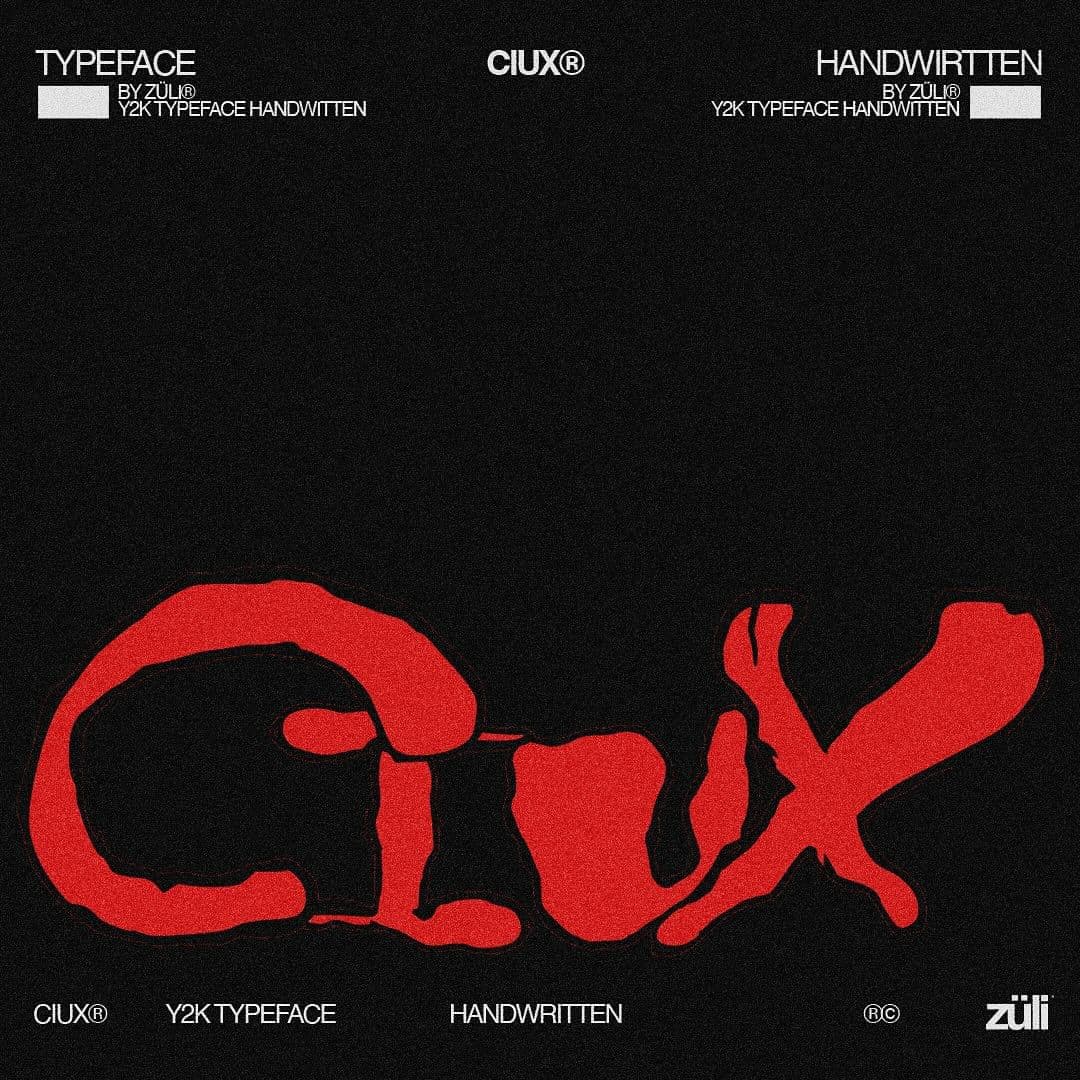
<p><strong>Font Features:</strong></p> <ul> <li>No Limitations on Commercial Use</li> <li>No Limitations on Installs Number</li> <li>Typeface is in Y2k Style</li> <li>Typeface with Two Volumes "Fill Black - Stroke Lines"</li> <li>Typeface will fit with any design and will improve the design level</li> </ul>